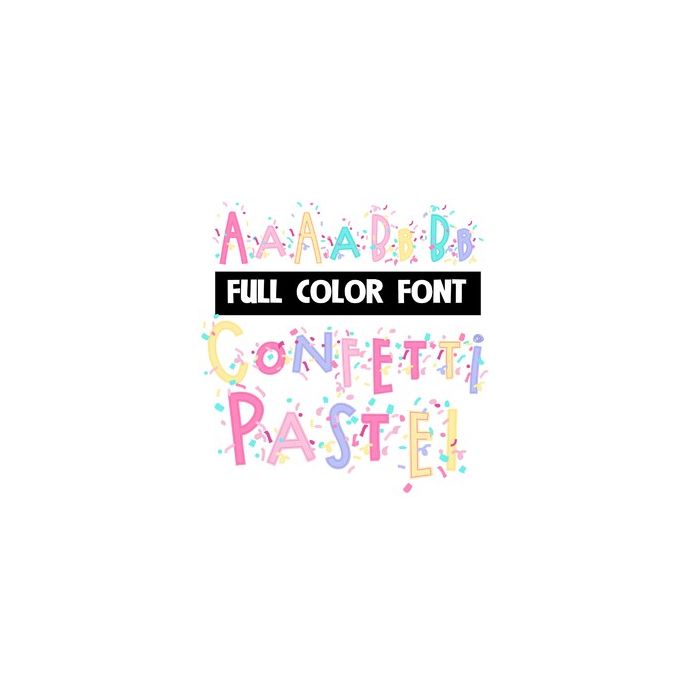
This full-color font features whimsical lettering and confetti. There is an alt case w/ additional colors you can access through your system or Silhouette's glyph map.